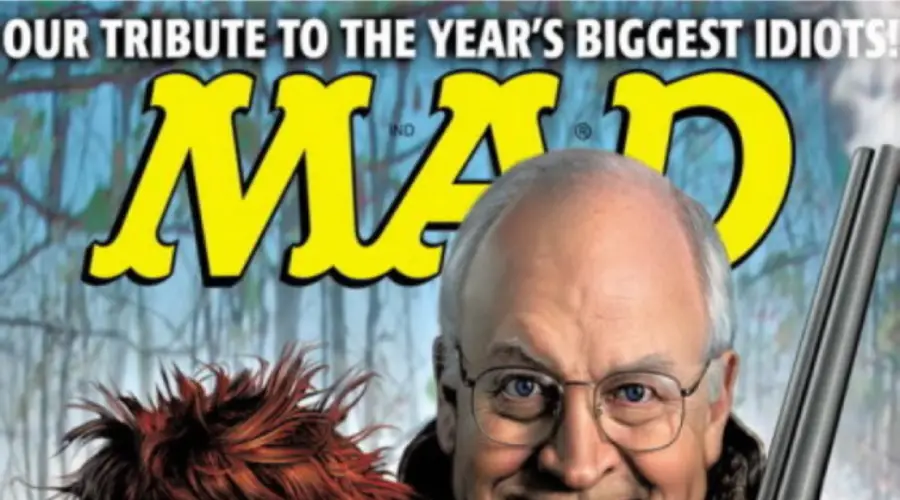
Mad Font
Quick answer: MAD Magazine uses designed masthead artwork, and DC’s public MAD page does not offer Madfont.TTF as an official typeface. The stored file is an unofficial visual alternative for experimenting with chunky, irregular comic lettering.
The official MAD page on DC is the primary reference for the current masthead and published covers. It documents the magazine and displays its artwork but does not credit or distribute this TTF. That makes “original” an unsupported label, so it has been replaced with “unofficial MAD-inspired recreation.”
Preview the unofficial MAD-inspired font
Enter an original short title in the gallery to evaluate the heavy proportions and playful irregularity. Do not use the preview result as evidence that the same digital file produced a specific MAD cover or logo.
What the visual comparison shows
MAD’s masthead is recognizable because of its custom letter shapes, uneven baseline, compact spacing, and cover-by-cover presentation. A fan font can approximate the broad mood while differing in outlines, punctuation, kerning, and special letters. Those differences matter when the wording extends beyond the four-letter magazine name.
For an original satire or comic heading, begin with a short uppercase phrase and allow controlled size variation between letters. Keep the silhouette clear before adding texture. Use your own color palette and illustration language rather than recreating Alfred E. Neuman, the magazine frame, or DC trade dress.
How to build a responsible inspired design
1. Type an original title and inspect every letter at large size.
2. Check spacing manually because novelty fonts often have uneven pairs.
4. Use original characters, symbols, and editorial branding.